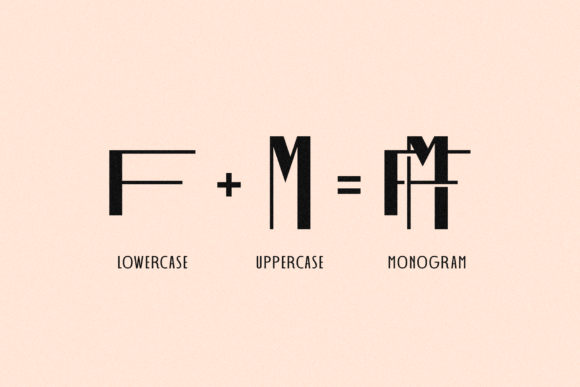
Introducing Art Deco Monogram Font: Elevate Your Crafting Ideas with Style
Are you looking for a font that can add a touch of elegance and sophistication to your crafting projects? Look no further than the Art Deco Monogram Font. This modern and uniquely lettered display font is perfect for a wide range of crafting ideas, from cards to branding, labels, and more. In this article, we’ll explore the features and benefits of the Art Deco Monogram Font and how it can elevate your crafting projects.
What is Art Deco Monogram Font?
Art Deco Monogram is a modern and stylish display font that is inspired by the art deco movement of the 1920s. The font features a unique and elegant lettering style that is perfect for adding a touch of sophistication to your crafting projects. The font is designed to be versatile and can be used for a wide range of projects, from cards and invitations to branding and labels.
Benefits of Using Art Deco Monogram Font
There are many benefits to using the Art Deco Monogram Font in your crafting projects. Here are just a few:
- Elegant and Sophisticated: The Art Deco Monogram Font features a unique and elegant lettering style that is perfect for adding a touch of sophistication to your crafting projects.
- Versatile: The font is designed to be versatile and can be used for a wide range of projects, from cards and invitations to branding and labels.
- Easy to Use: The font is PUA encoded, which means you can access all of the glyphs and swashes with ease.
- Modern and Trendy: The Art Deco Monogram Font is a modern and trendy font that is perfect for crafters who want to stay on top of the latest design trends.
Features of Art Deco Monogram Font
The Art Deco Monogram Font has a range of features that make it perfect for crafting projects. Here are just a few:
- PUA Encoded: The font is PUA encoded, which means you can access all of the glyphs and swashes with ease.
- Unique Lettering Style: The font features a unique and elegant lettering style that is perfect for adding a touch of sophistication to your crafting projects.
- Modern and Trendy: The Art Deco Monogram Font is a modern and trendy font that is perfect for crafters who want to stay on top of the latest design trends.
- Wide Range of Uses: The font is designed to be versatile and can be used for a wide range of projects, from cards and invitations to branding and labels.
Crafting Ideas Using Art Deco Monogram Font
The Art Deco Monogram Font is perfect for a wide range of crafting projects. Here are just a few ideas to get you started:
- Cards and Invitations: Use the Art Deco Monogram Font to create elegant and sophisticated cards and invitations for special occasions.
- Branding and Labels: Use the font to create custom branding and labels for your business or products.
- Stationery and Journaling: Use the font to create beautiful and elegant stationery and journal pages.
- Signs and Displays: Use the font to create eye-catching signs and displays for events or businesses.
Tips and Tricks for Using Art Deco Monogram Font
Here are a few tips and tricks for using the Art Deco Monogram Font in your crafting projects:
- Experiment with Different Colors: The Art Deco Monogram Font looks great in a range of colors, so don’t be afraid to experiment and find the perfect color for your project.
- Use with Other Fonts: The font pairs well with other fonts, so try using it with a sans-serif font for a modern and elegant look.
- Pay Attention to Spacing: Make sure to pay attention to the spacing between letters and words to ensure that your project looks elegant and sophisticated.
- Have Fun: Most importantly, have fun and be creative with the Art Deco Monogram Font!
The Art Deco Monogram Font is a modern and uniquely lettered display font that is perfect for adding a touch of elegance and sophistication to your crafting projects. With its PUA encoding, unique lettering style, and versatility, this font is perfect for a wide range of crafting ideas, from cards and invitations to branding and labels. Whether you’re a crafter, designer, or business owner, the Art Deco Monogram Font is a great addition to your font collection.